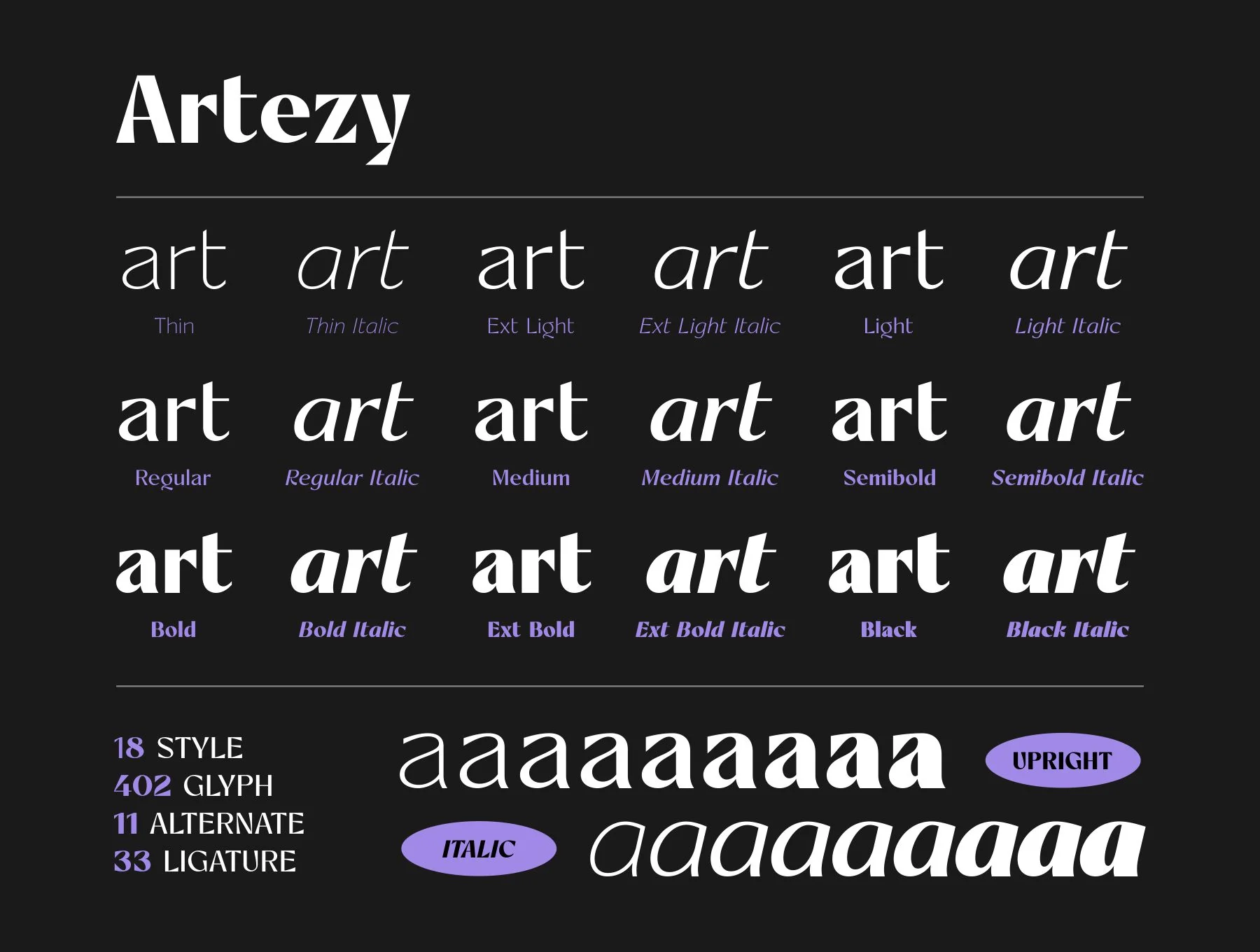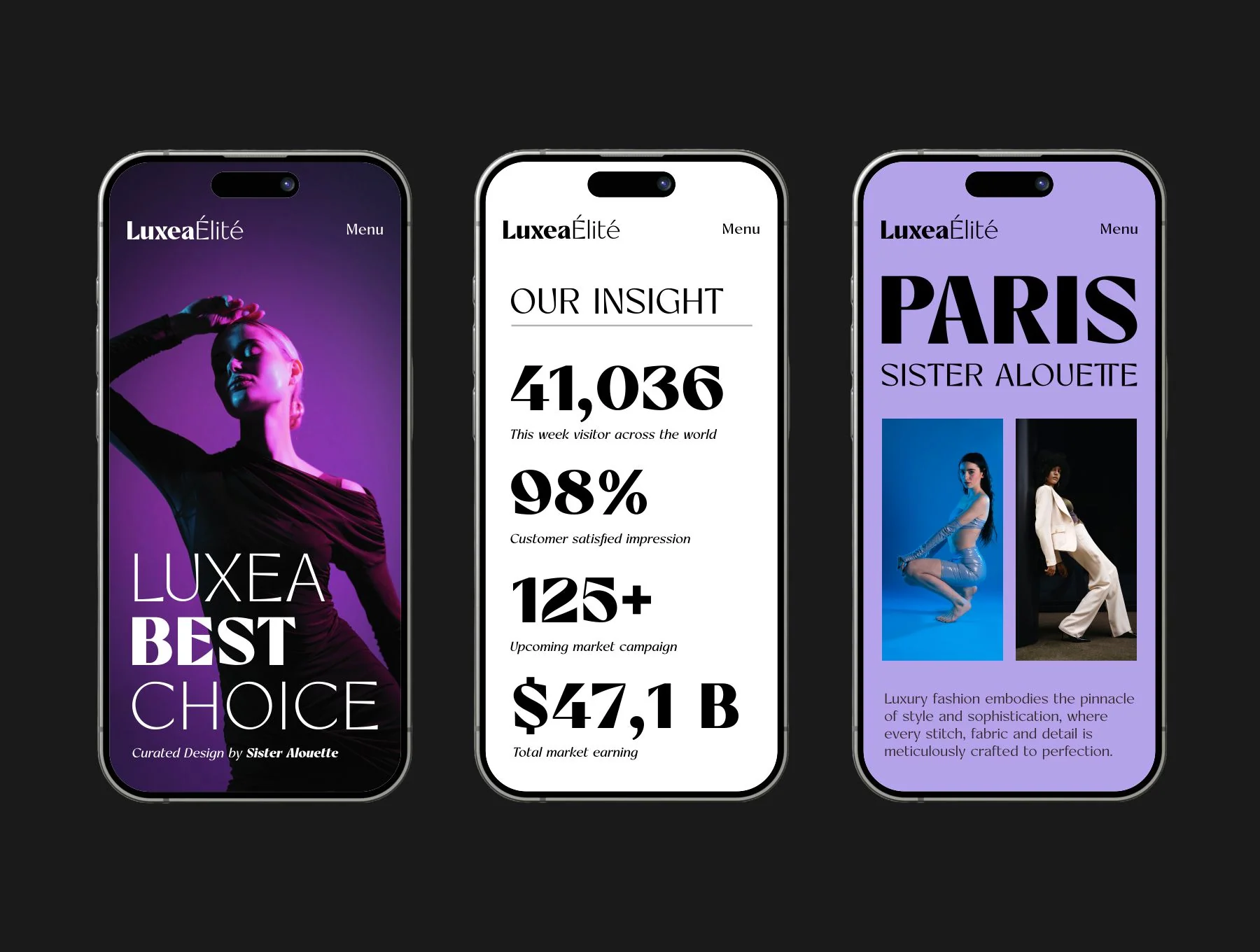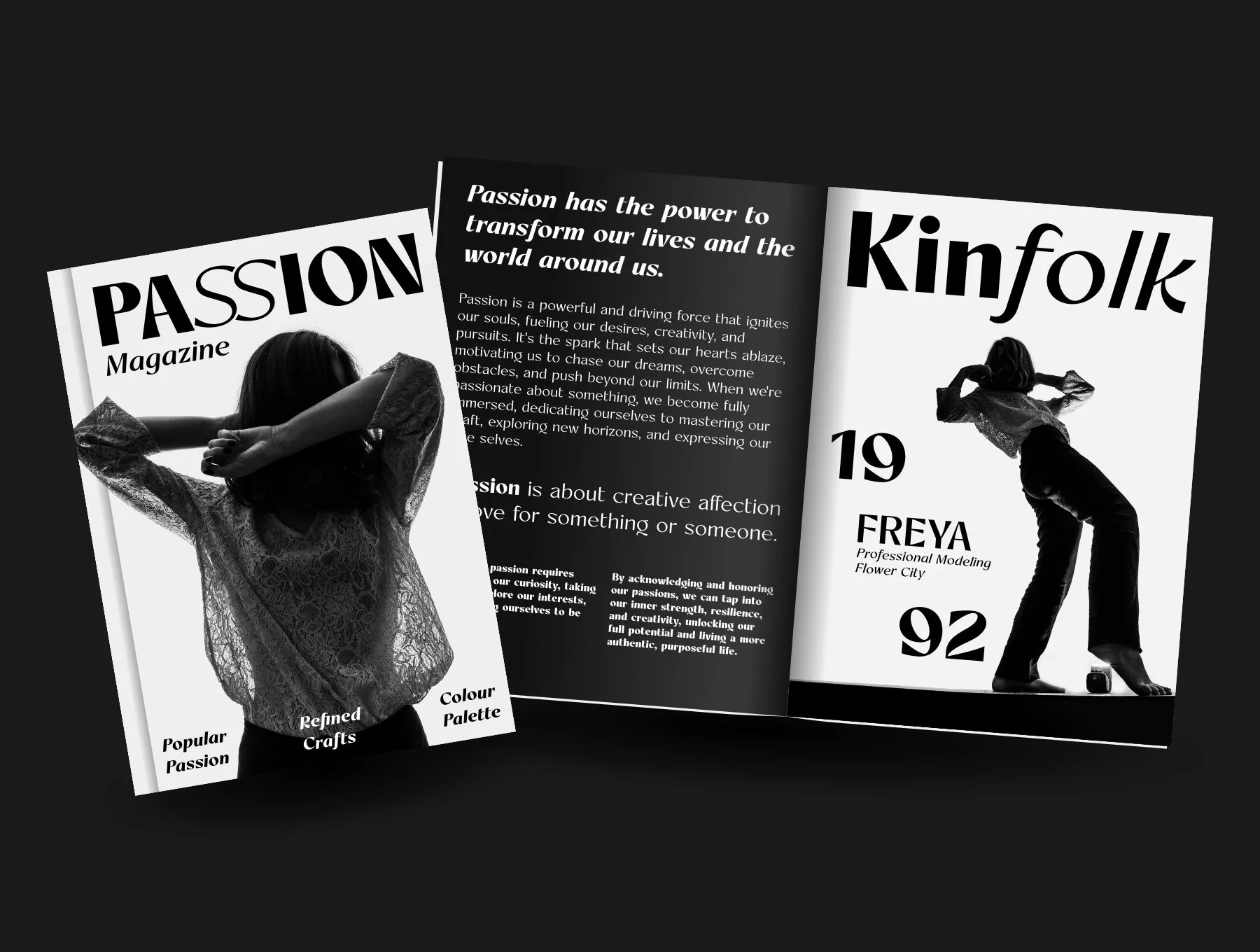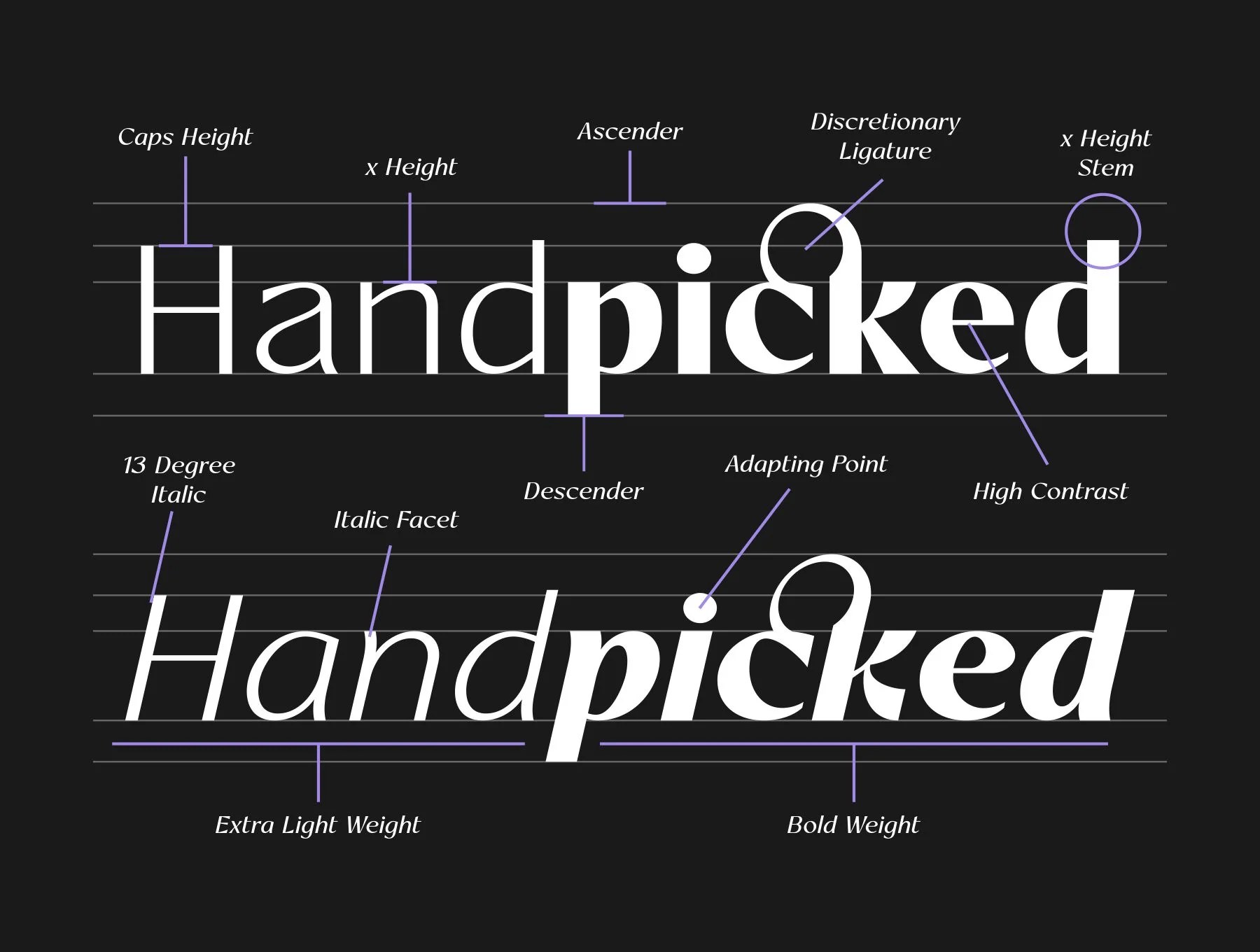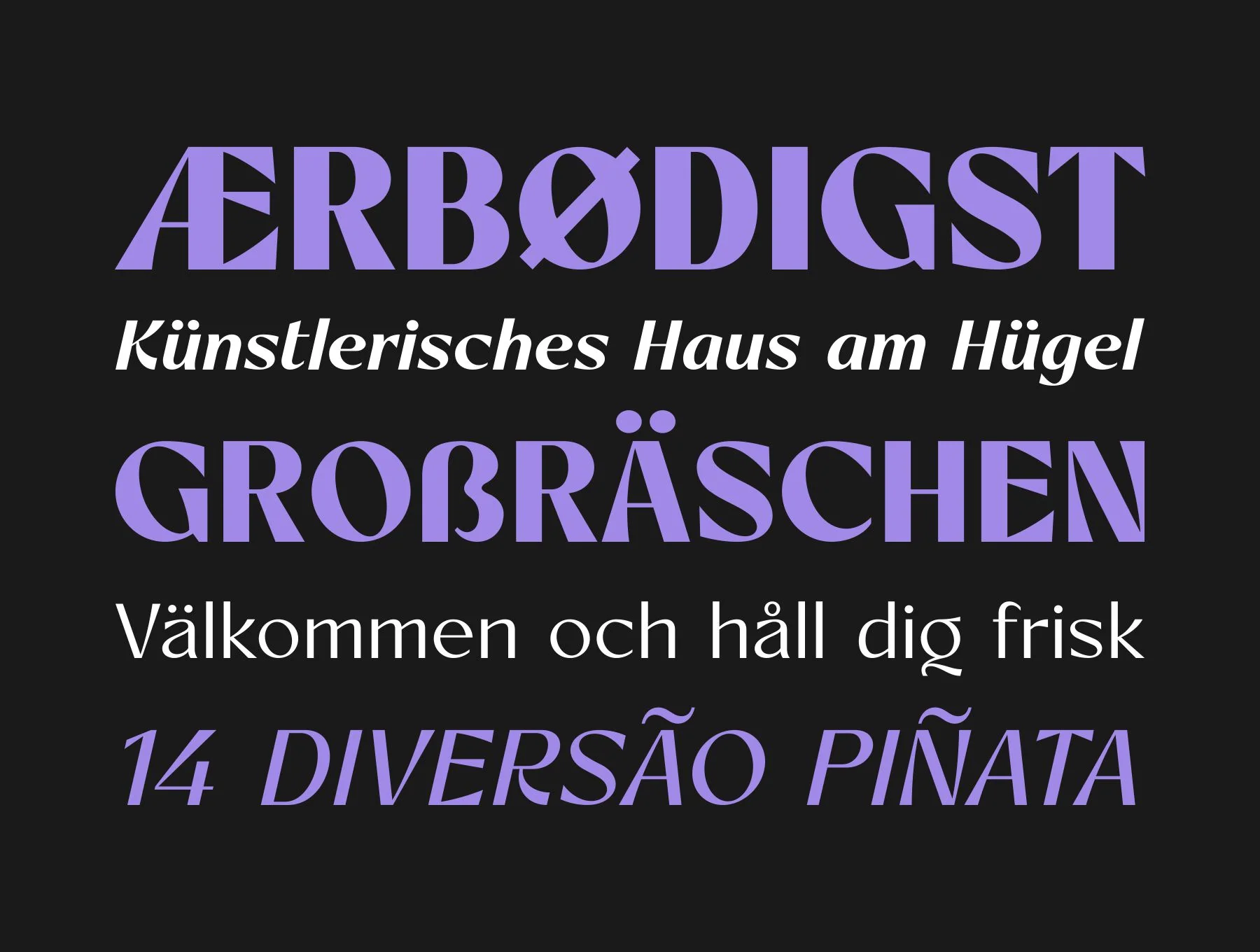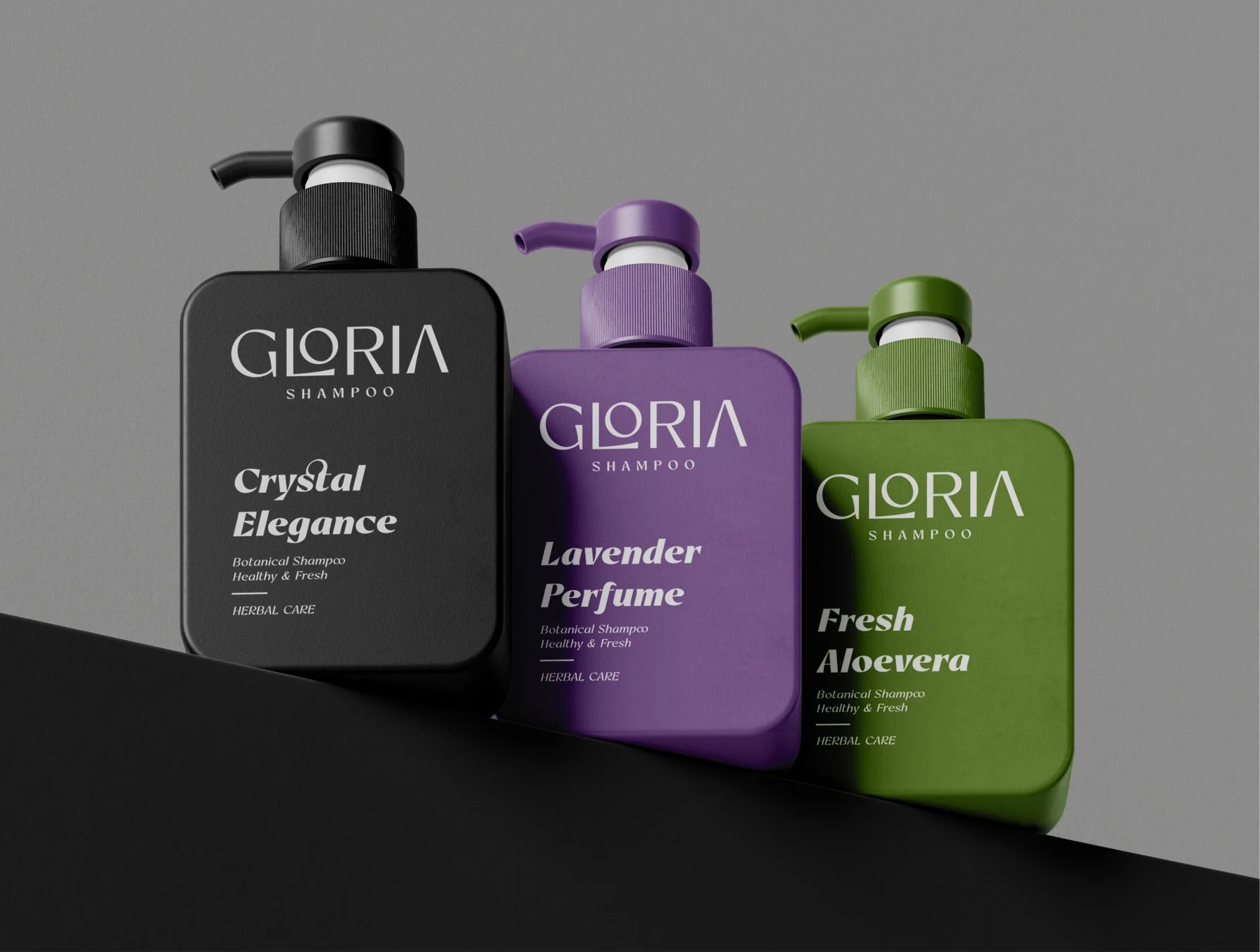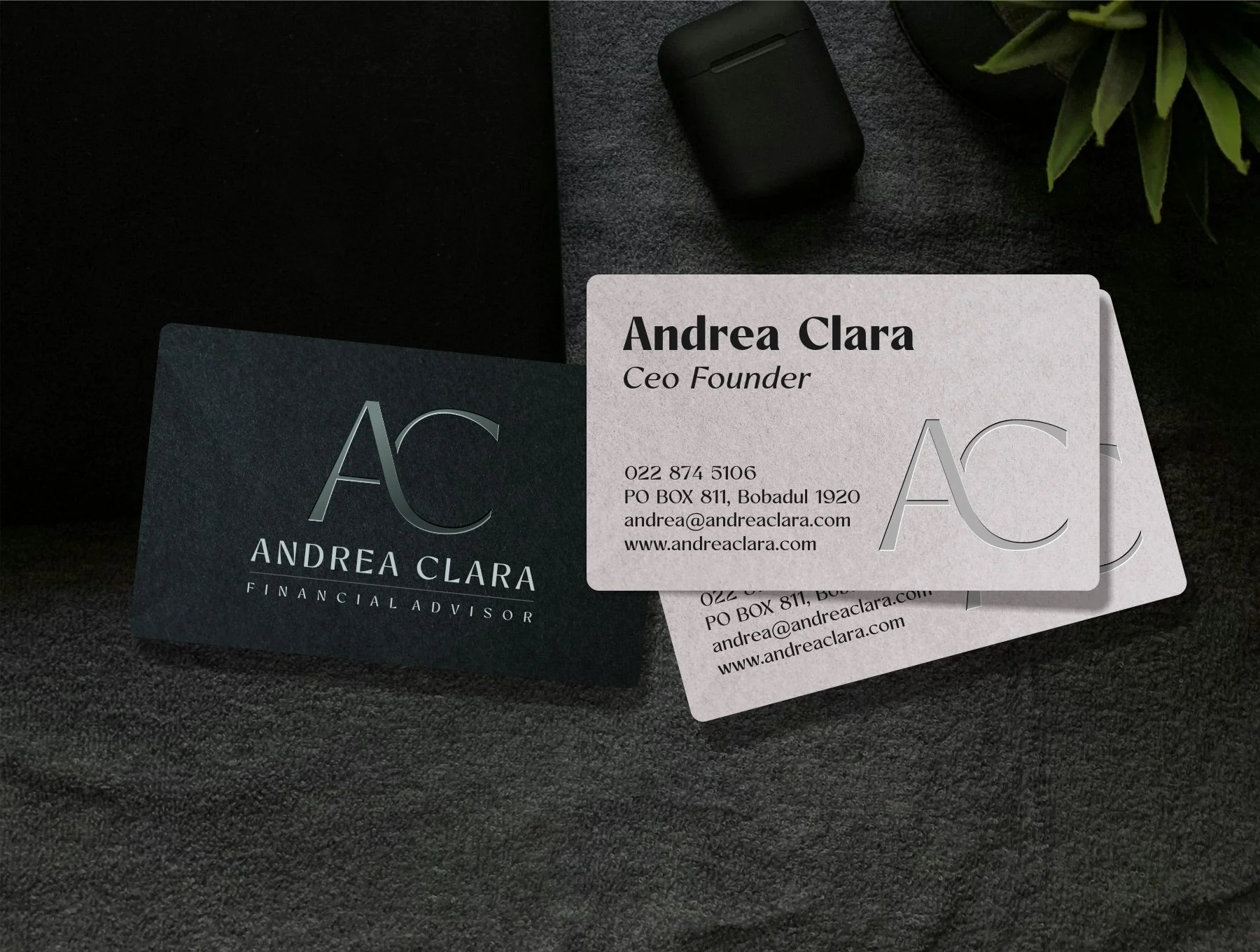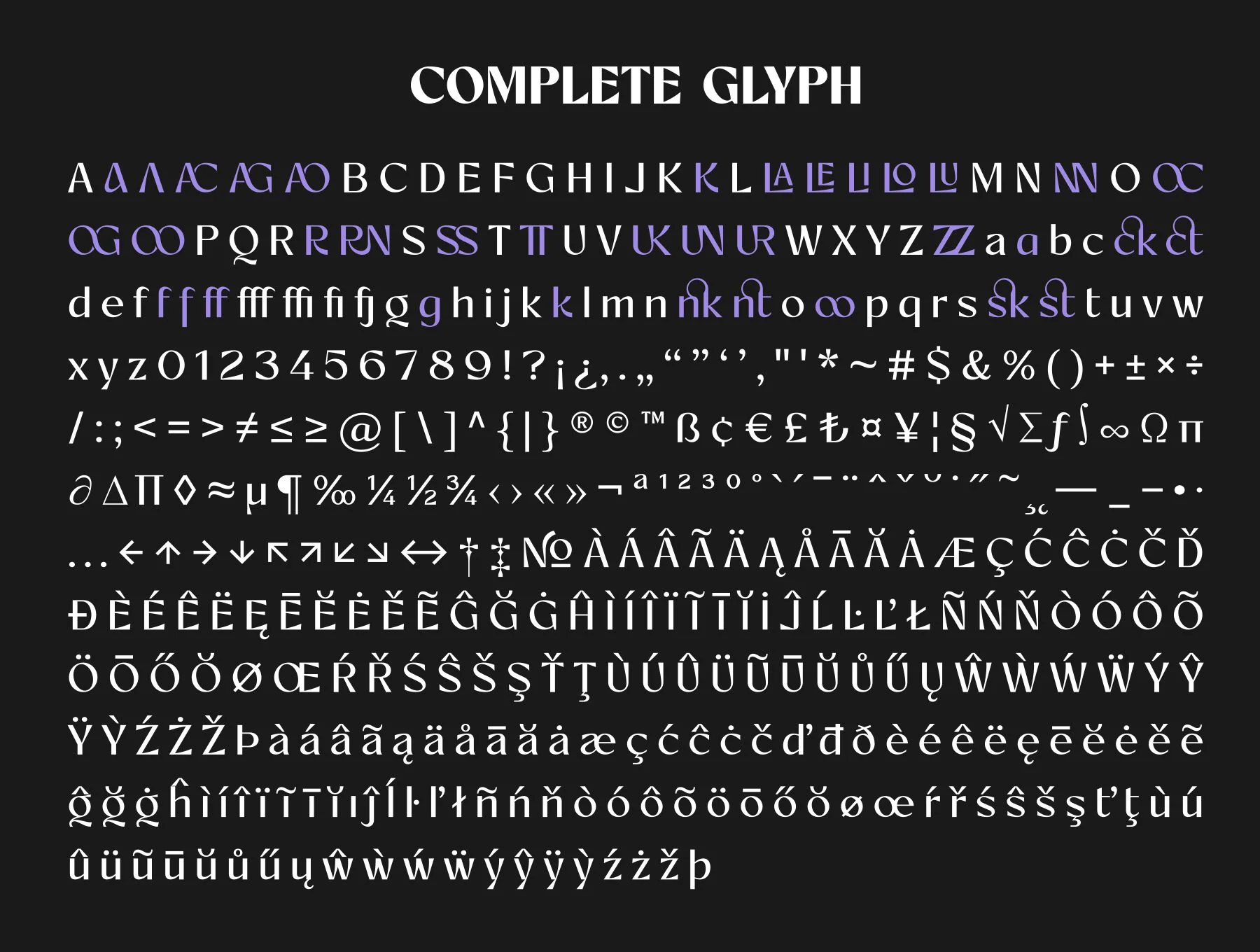
Artezy Font Family
Refined Sans Serif Font Family
Stylistic variants and ligatures
Artezy is a refined decorative sans-serif family with 18 fonts in 9 weights, from Thin to Black. Inspired by art and ease, its high-contrast letters mix luxury style with clean modern lines for premium branding, logos, magazines, posters, packaging, websites and more. Includes OTF, TTF and WOFF files, standard glyphs, alternates, ligatures, symbols, punctuation and multilingual support.